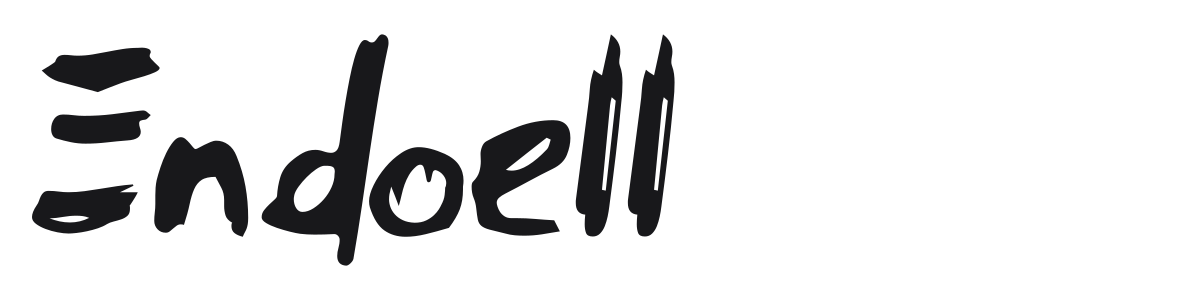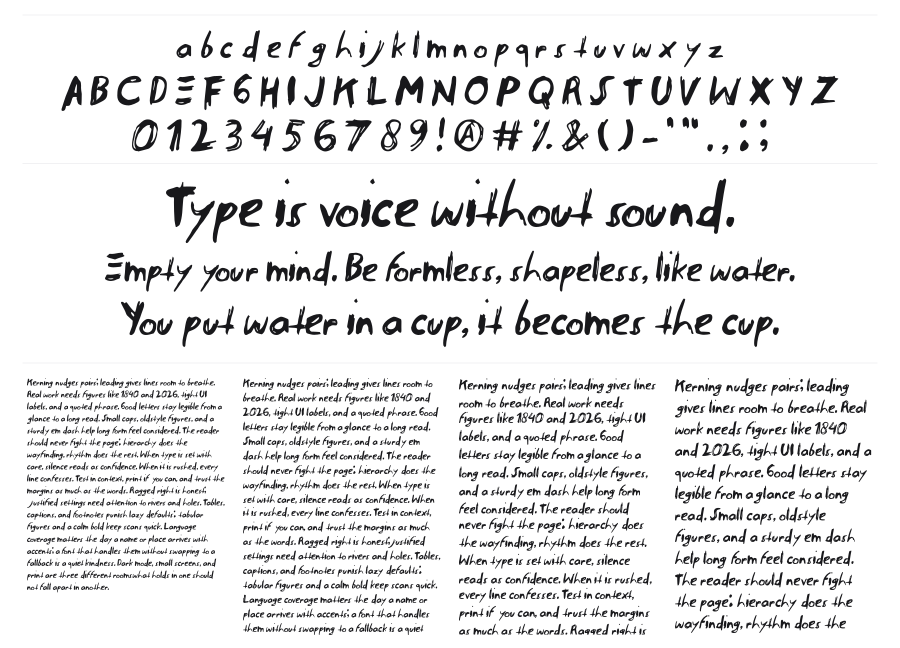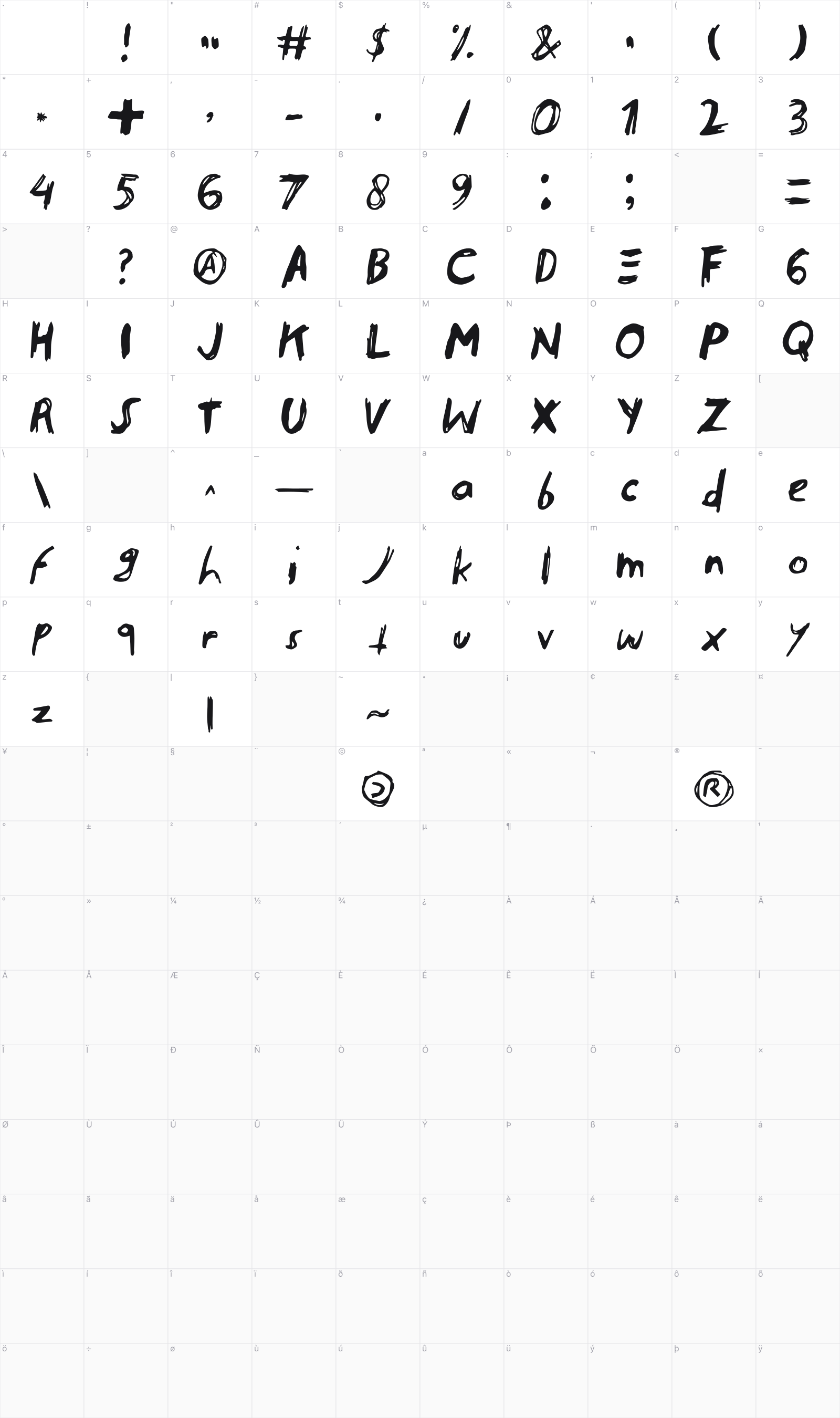
Endoell
Endoell is a heavy brush script with a raw, gestural quality that feels like letters dragged quickly across paper. The irregular baseline, rough stroke endings, and thick ink-loaded strokes give it an unpolished, underground energy. It works best large, where the texture and expressiveness can breathe.